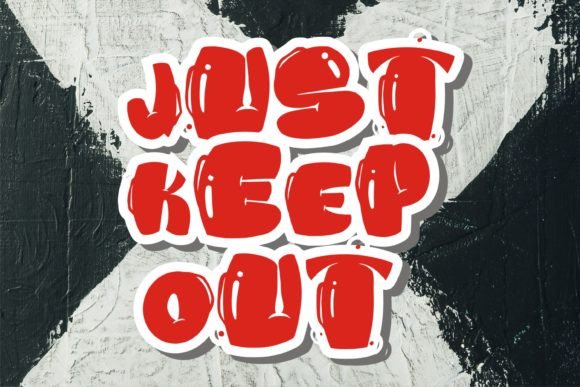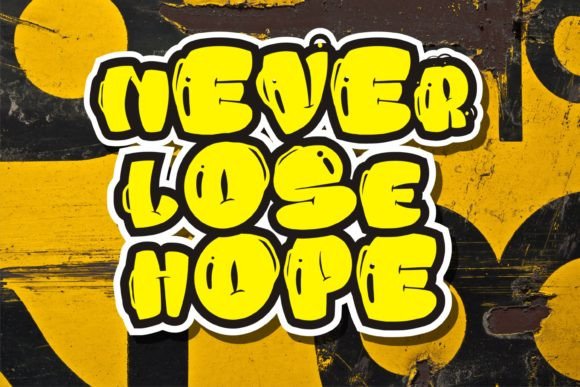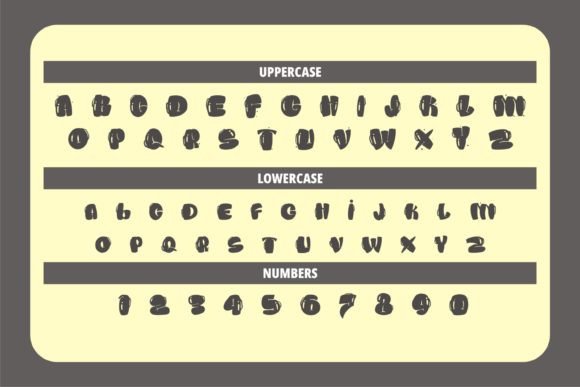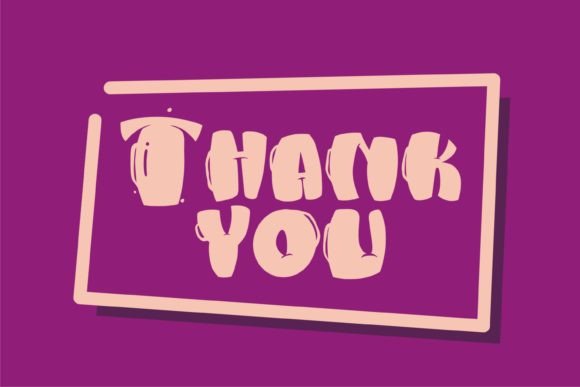
The Groovy Bubble Font: A Quirky and Bold Display Font for Youth-Related Designs
I’ll never forget the time I was working on a design project for a music festival, and I just couldn’t find the right font to capture the vibe. The client wanted something bold, playful, and youthful, but everything I tried seemed to fall flat. That’s when I stumbled upon the Groovy Bubble font, and it was like a lightbulb went off! ✨
In this article, I’ll share my experience with the Groovy Bubble font, including what I love about it, some quirks to watch out for, and practical tips on how to use it in your designs.
- ✨ The Groovy Bubble font is ridiculously fun and playful, making it perfect for youth-related designs, music, and other projects that require a bold touch.
- ✅ It’s incredibly versatile and can be used for a wide range of applications, from printing on t-shirts and hats to designing cellphone cases and more.
- 💥 The font has a unique, quirky personality that adds a touch of whimsy to any design.
While the Groovy Bubble font is amazing, there are a few things to keep in mind: 🤔
- ⚠️ The font can be a bit overwhelming if overused, so be sure to balance it with some cleaner fonts.
- ⚠️ Some of the glyphs and special characters can be a bit finicky, so be prepared to do some troubleshooting.
The Designer Inspiration Behind Groovy Bubble
The Groovy Bubble font was inspired by the fun, carefree vibes of the 1960s and 1970s. The designer wanted to create a font that captured the playful, youthful spirit of that era, with a dash of whimsy and humor.
Q: What is the Groovy Bubble font best used for?
A: The Groovy Bubble font is perfect for youth-related designs, music, printing on t-shirts, hats, cellphone cases, and other projects that require a bold touch.
Q: Is the Groovy Bubble font easy to read?
A: While the Groovy Bubble font is bold and playful, it can be a bit tricky to read in large blocks of text. It’s best used in short bursts or headlines.